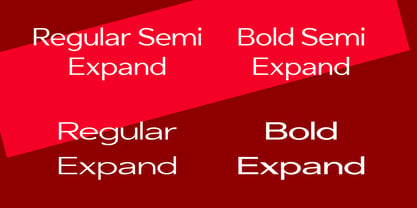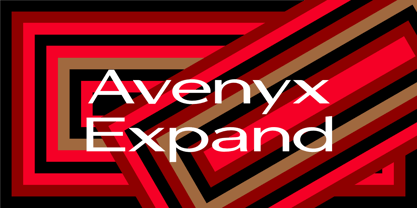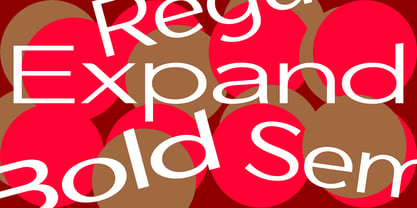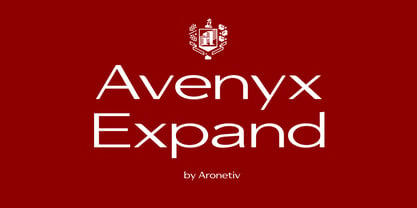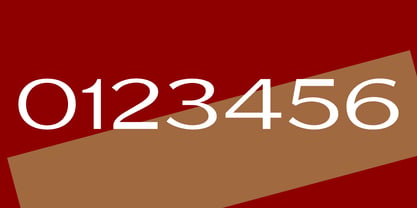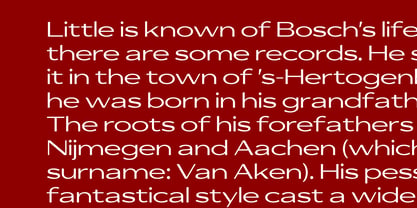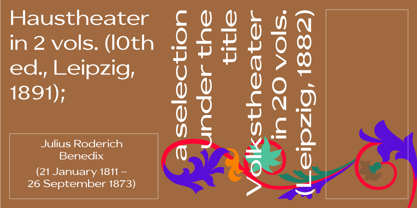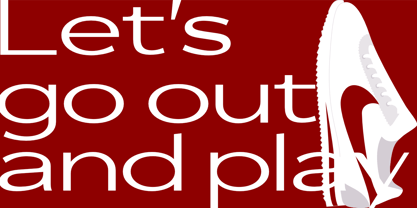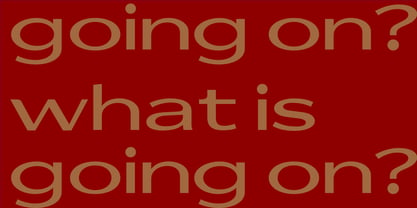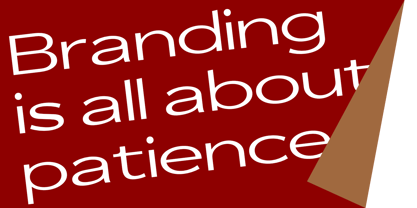
Avenyx Expand
Die Schriftfamilie Avenyx Expand wurde von Aleksey Popovtsev entworfen und von Aronetiv veröffentlicht. Avenyx Expand enthält 4 Stile und Familienpaketoptionen. Mehr über diese Familie
Avenyx Expand is a wide geometric display typeface with a clean futuristic character. Its extended proportions, thin horizontal rhythm and sharp angular details create a sense of speed, technology and open space. The typeface combines minimal construction with expressive width, making it suitable for posters, visual identities, album covers, fashion graphics, sci-fi interfaces and experimental editorial design.
Avenyx Expand works best in large sizes, where its stretched letterforms reveal a cinematic and architectural quality. The family includes regular, semi and bold styles, allowing the typeface to shift from elegant and airy to strong and monumental.
Designer: Aleksey Popovtsev
Foundry: Aronetiv
Aronetiv was founded in 2019 in Kyiv. It employs one person: artist and graphic designer Oleksii Popovtsev. Once Oleksii said that he likes to observe how a letter is born on the border of black and white, as shape and counter-shape create an image. This is his search and inspiration for all his works. Aronetiv develops fonts with Cyrillic and alphabets of Eastern Europe languages, to form a common European culture both in Ukraine and abroad.